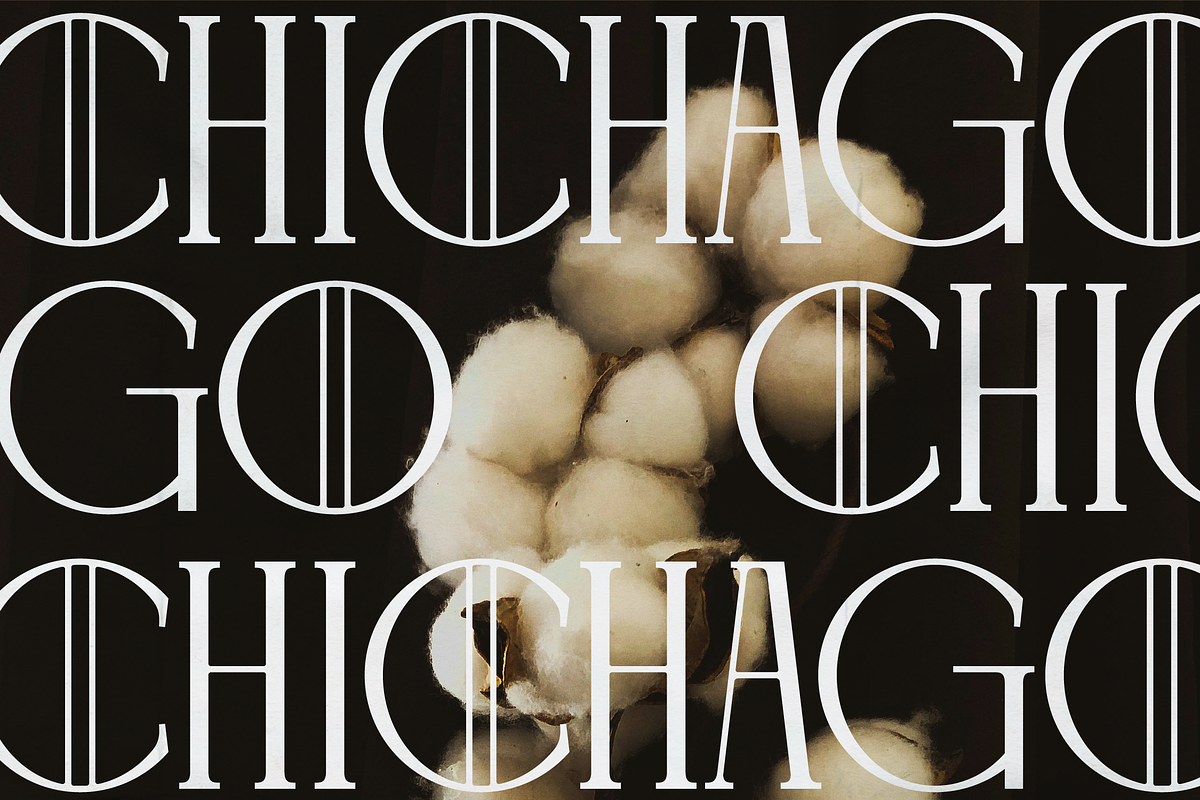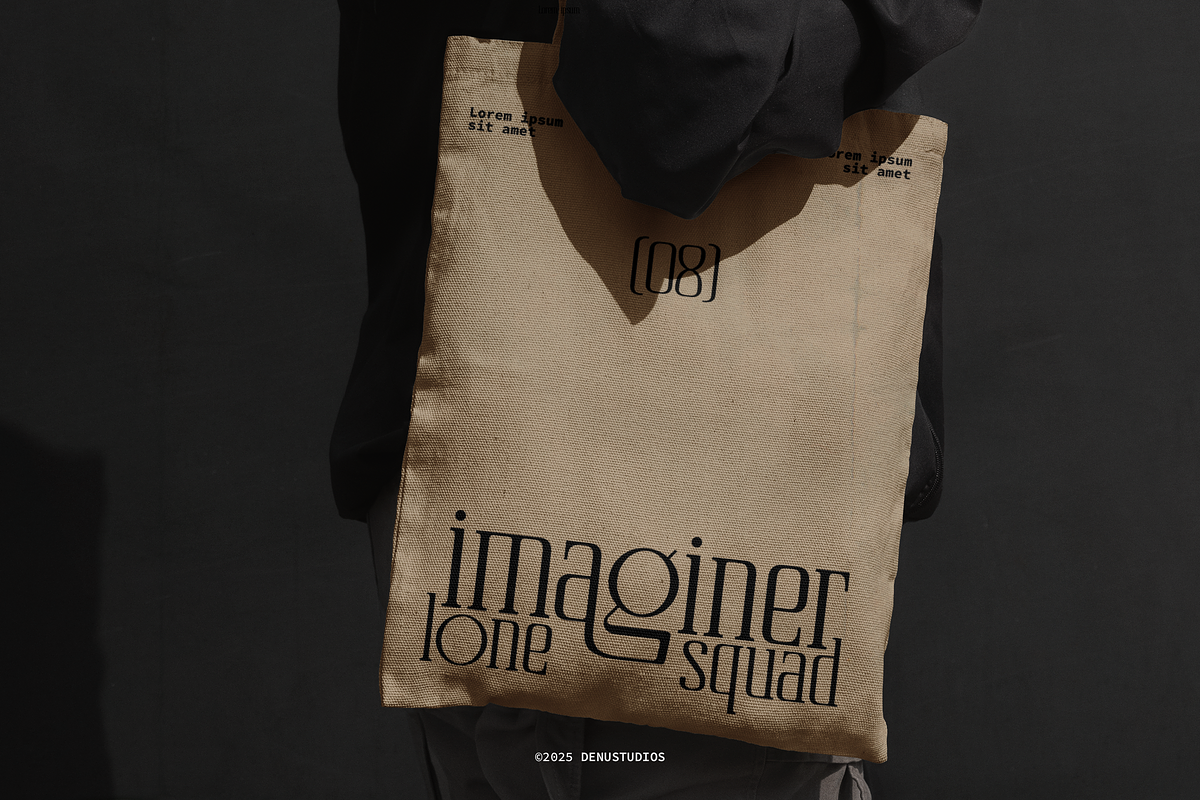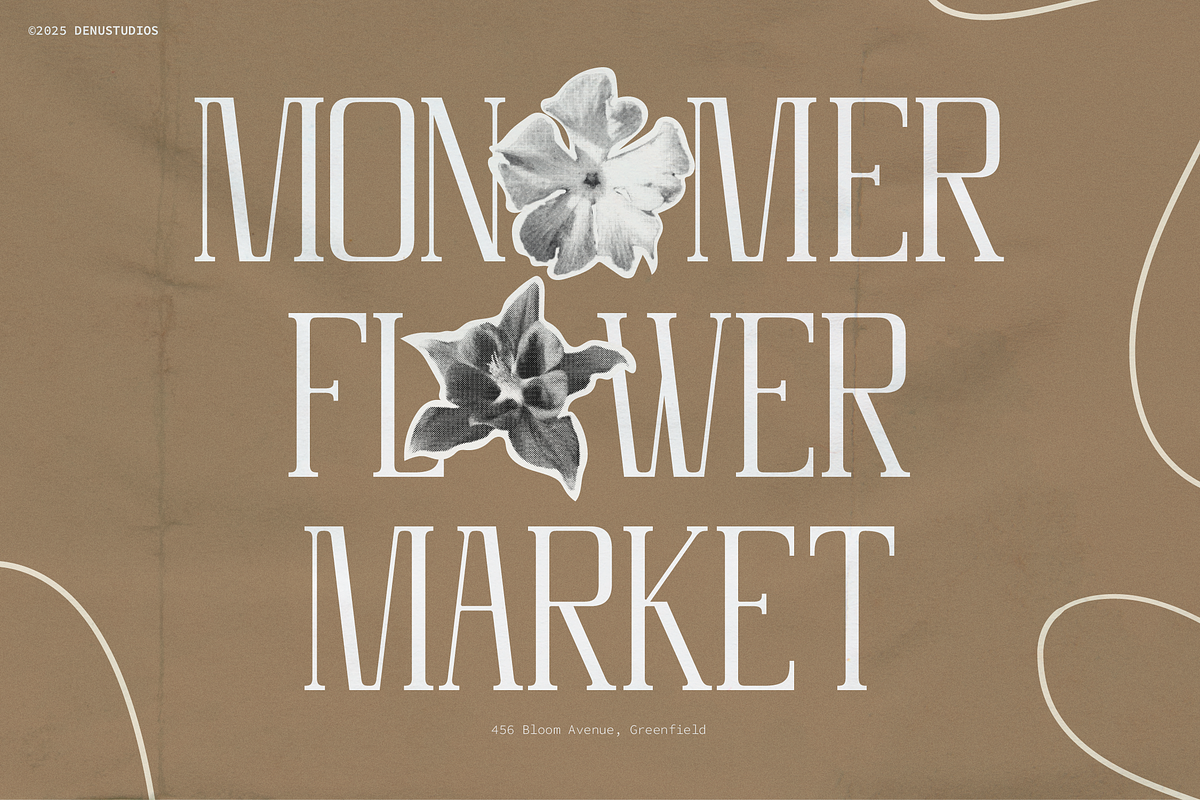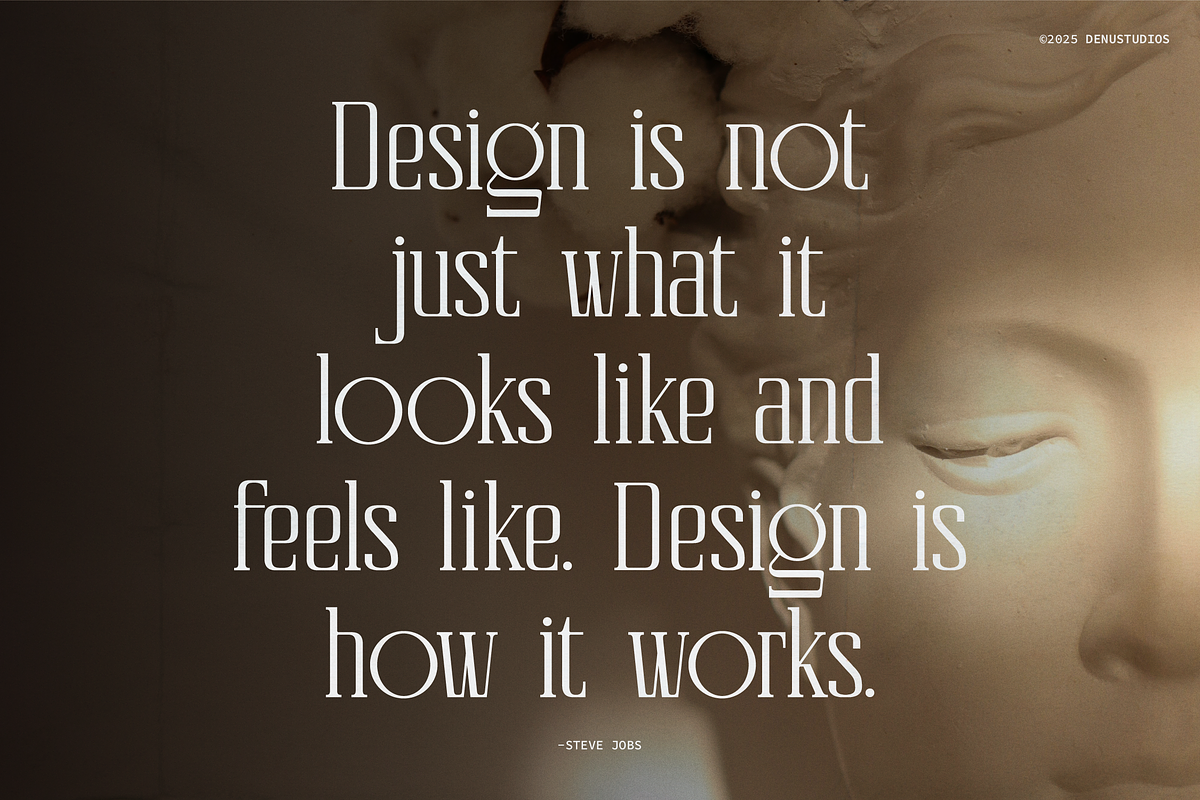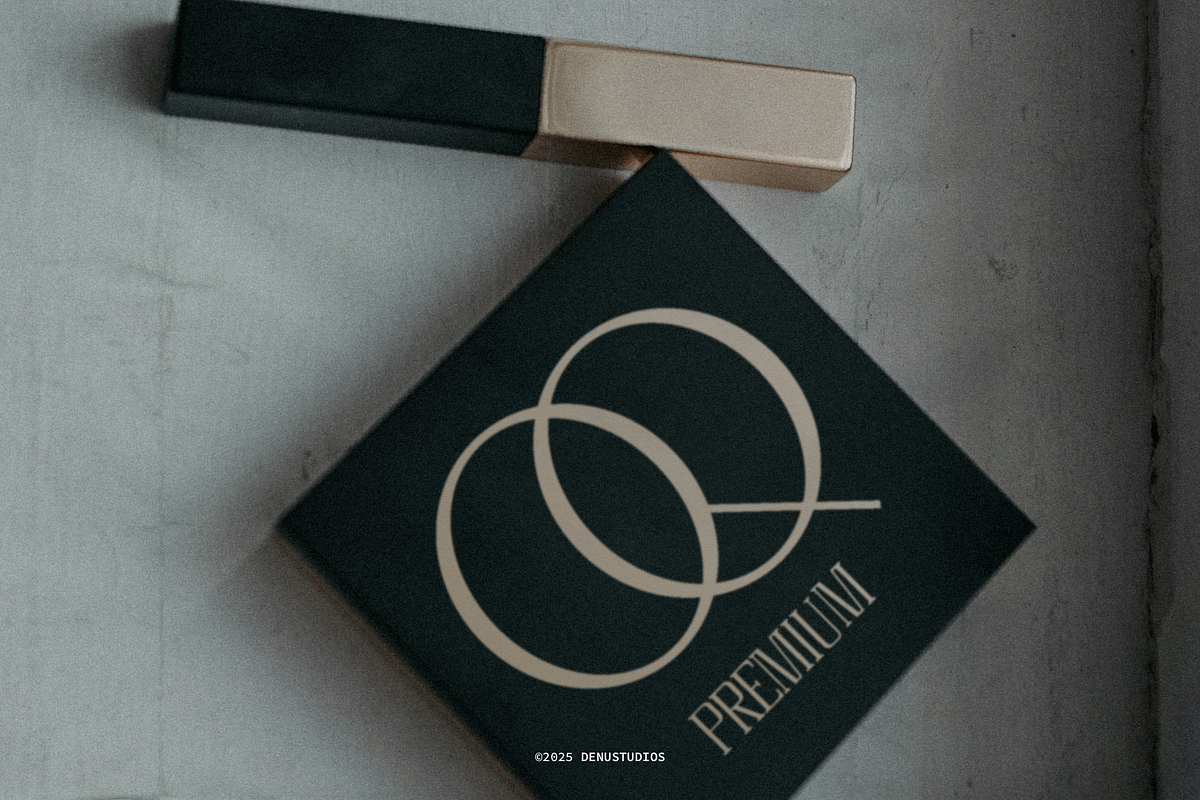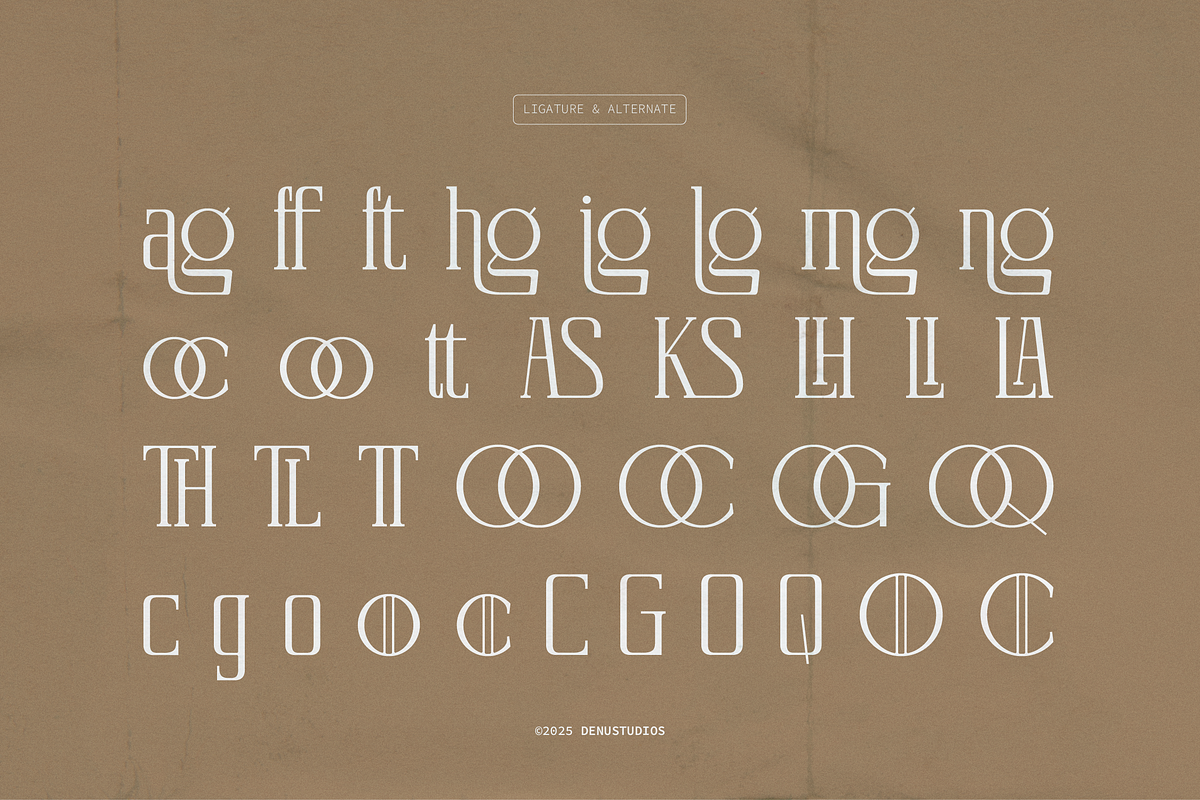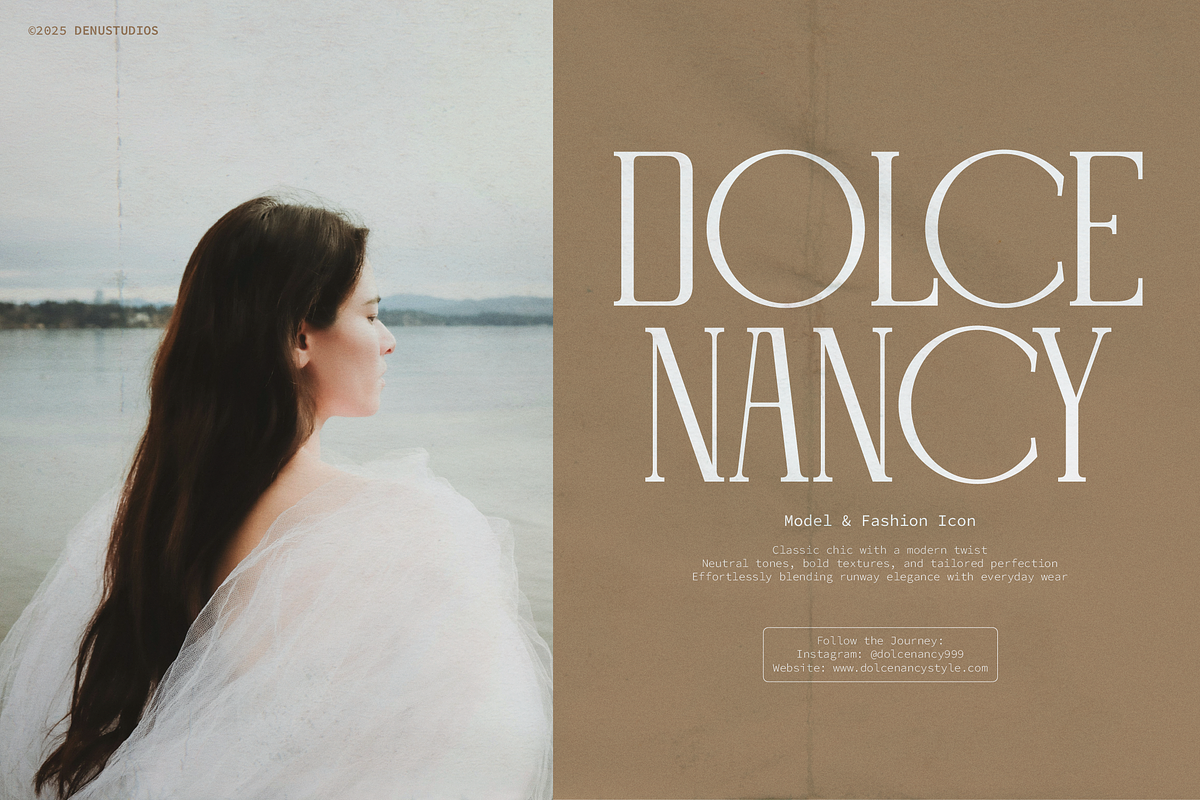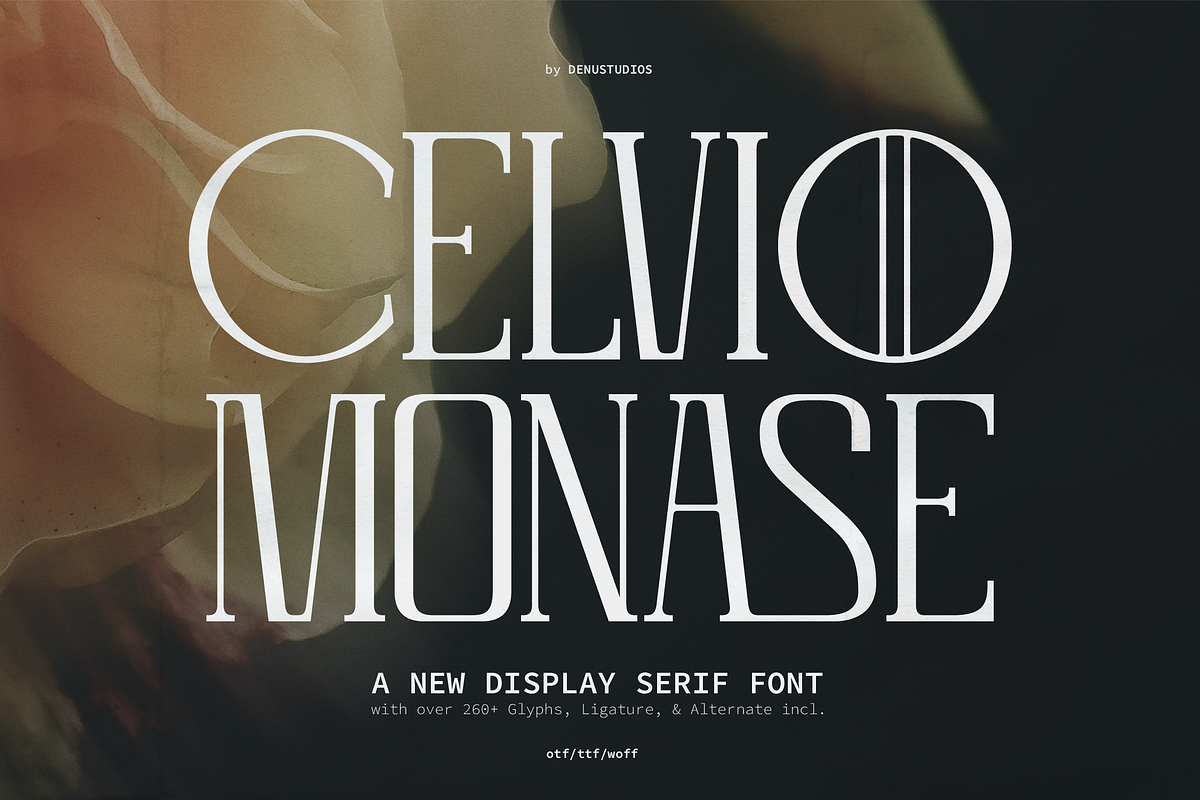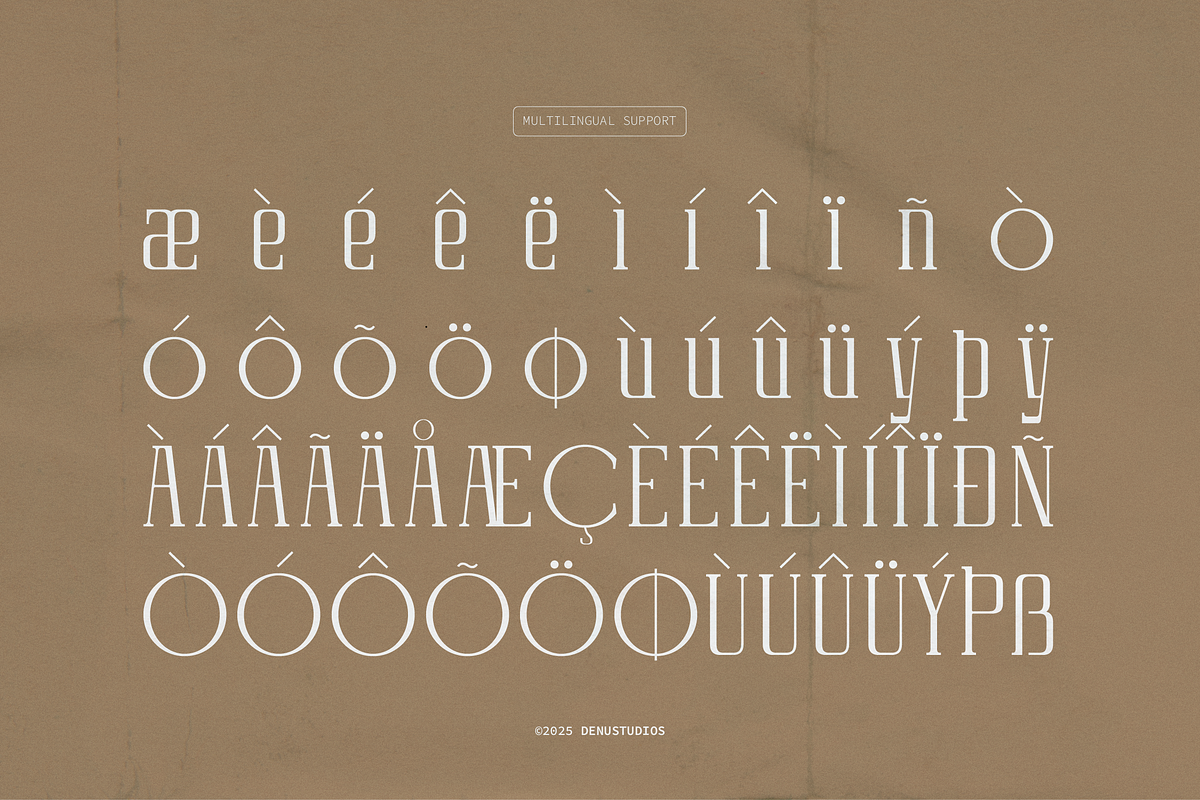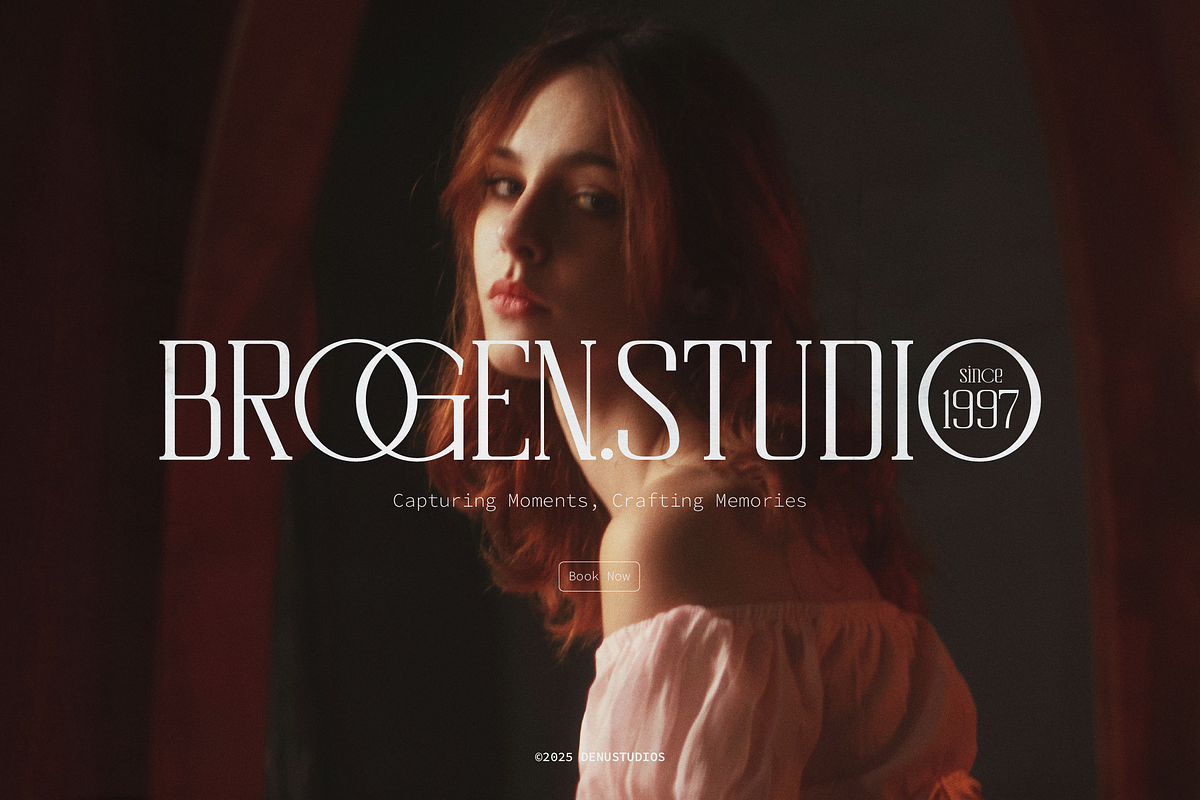
Celvio Monase | New Display Serif
Celvio Monase | New Display Serif, from Denustudios, suitable for any projects such as: logos, branding projects, homeware designs, product packaging, mugs, quotes, posters, shopping bags, t-shirts, book covers, name card, invitation cards, greeting cards, label, photography, watermark, special events, and all your other lovely projects that need a New Display Serif taste.